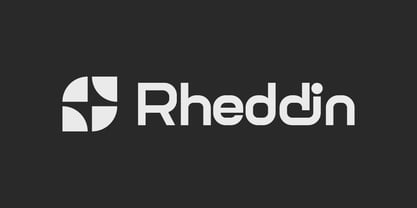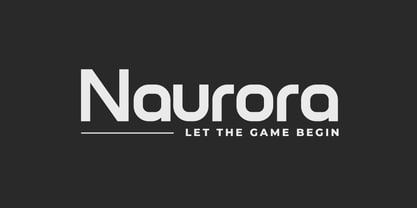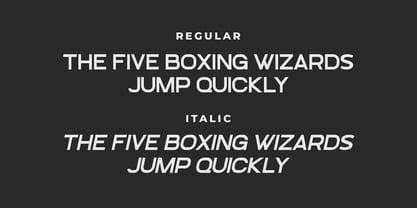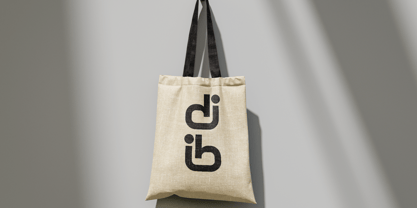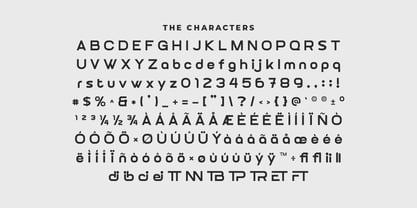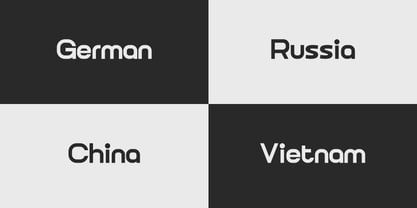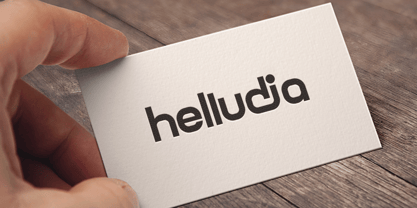
Ibaro
by Artiveko
The Ibaro Font Family was designed by Iwan Alwan and published by Artiveko. Ibaro contains 2 styles and family package options. More about this family
Ibaro is a creative logo font designed with unique and stylish letterforms that make a strong visual statement. Perfect for branding, logotypes, packaging, and modern design projects, Ibaro blends innovation with readability. Featuring multilingual support, ligatures, and alternates, this versatile typeface ensures a distinctive and professional look, making it an excellent choice for designers seeking a bold and memorable identity.
Designers: Iwan Alwan
Foundry: Artiveko